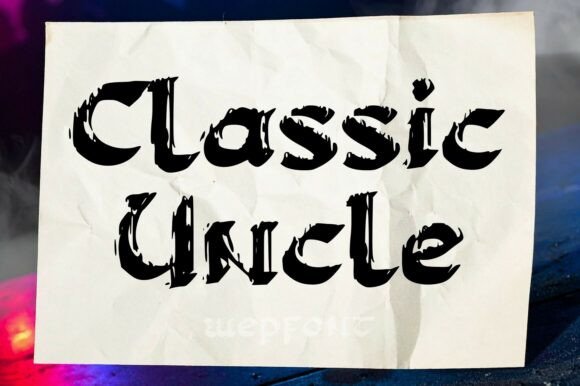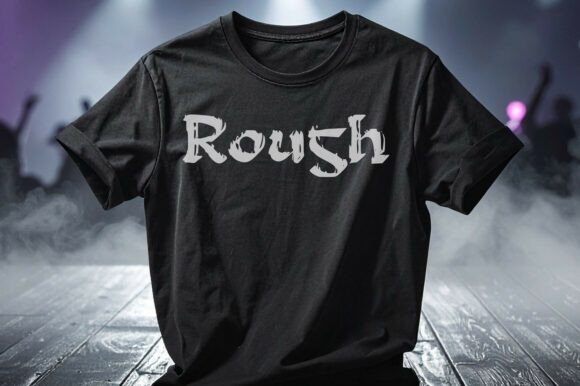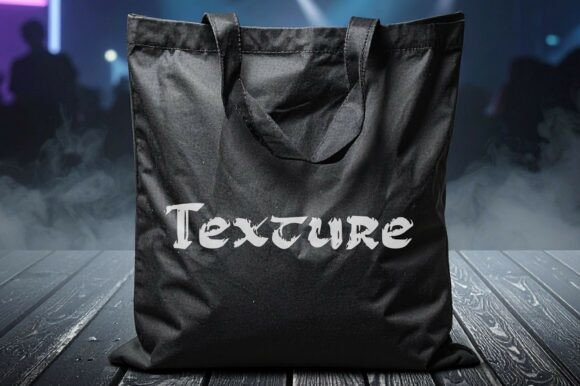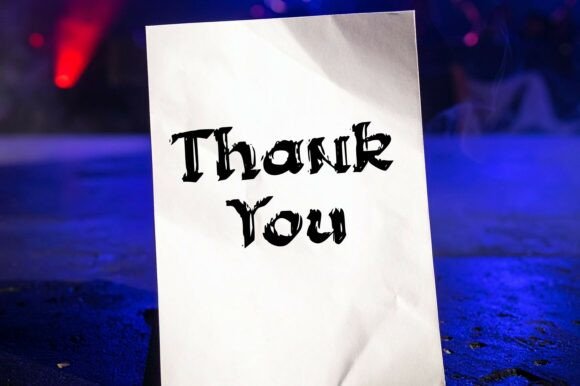
Unleash the Timeless Charm of Classic Uncle Font: A Bold Display Font for the Ages
Are you tired of using the same old fonts that lack character and personality? Look no further than Classic Uncle, a bold display font that embodies the essence of “fading elegance” and vintage charm. With its uniquely jagged edges and weathered texture, this mighty font brings a raw, honest energy to your work that’s reminiscent of old-school letterpress prints and hand-carved signage.
The Story Behind Classic Uncle
Classic Uncle is more than just a font – it’s a handcrafted marvel where every character tells a story of time-worn appeal. Its assertive and strong design demands focus while maintaining excellent readability for your most important messages. The font’s traditional soul hints at Gothic or even medieval styles, but its adaptability makes it a versatile choice for a wide range of design projects.
Key Features of Classic Uncle Font
- Uniquely Jagged Edges: The font’s distinctive edges give it a rugged, handmade feel that’s perfect for designs that require a bit of grit and character.
- Weathered Texture: The font’s weathered texture adds a layer of depth and authenticity to your designs, making them look like they’ve been crafted with care and attention to detail.
- Excellent Readability: Despite its bold and assertive design, Classic Uncle font remains highly readable, making it perfect for headlines, titles, and other display text.
- Adaptable: Whether you’re designing for grunge aesthetics or modern rustic designs, Classic Uncle font fits right in, making it a versatile choice for a wide range of projects.
Classic Uncle font is incredibly versatile, making it suitable for a wide range of design projects. Here are just a few ideas to get you started:
- T-Shirt Graphics: Add a touch of rugged elegance to your t-shirt designs with Classic Uncle font. Its bold and assertive design makes it perfect for creating eye-catching graphics that demand attention.
- Artisanal Craft Beer Labels: Give your craft beer labels a vintage, handcrafted feel with Classic Uncle font. Its weathered texture and jagged edges evoke the feeling of hand-carved signage, making it perfect for artisanal products.
- Gaming Projects: Add a touch of epic audacity to your gaming projects with Classic Uncle font. Its bold and assertive design makes it perfect for creating titles, headings, and other display text that demands attention.
Why Choose Classic Uncle Font?
With so many fonts to choose from, why should you choose Classic Uncle? Here are just a few reasons:
- Unique Character: Classic Uncle font has a unique character that’s hard to find in other fonts. Its jagged edges and weathered texture give it a distinctive look that’s sure to set your designs apart.
- Highly Versatile: Whether you’re designing for grunge aesthetics or modern rustic designs, Classic Uncle font fits right in, making it a versatile choice for a wide range of projects.
- Handcrafted Quality: Classic Uncle font is a handcrafted marvel where every character tells a story of time-worn appeal. Its high-quality design makes it perfect for professional designers and crafters.
In conclusion, Classic Uncle font is a bold display font that perfectly captures a sense of “fading elegance” and vintage charm. With its uniquely jagged edges and weathered texture, this mighty font brings a raw, honest energy to your work that’s reminiscent of old-school letterpress prints and hand-carved signage. Its adaptability, excellent readability, and handcrafted quality make it a versatile choice for a wide range of design projects. So why settle for a bland, generic font when you can unleash the timeless charm of Classic Uncle font?